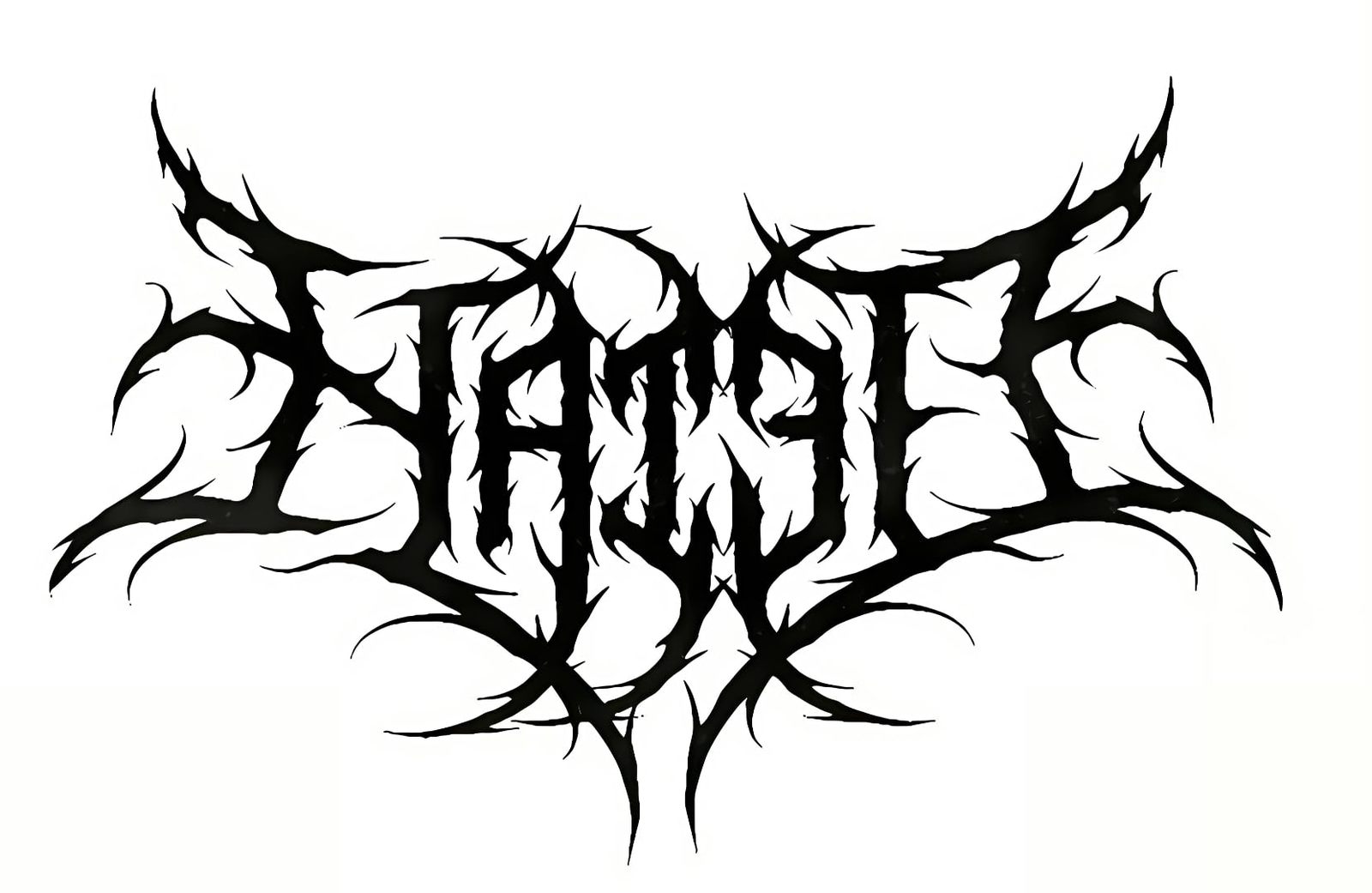
Hated Premium Death Metal Font Vinyl Decal Banner, JDM Style, Windshield Applica
Make a bold statement with this premium vinyl decal banner featuring an aggressive death metal font design. Perfect for automotive enthusiasts embracing the JDM (Japanese Domestic Market) style, this Hated brand decal is specifically crafted for windshield application. The striking typography creates an intense, eye-catching display that stands out against any surface. Each decal is precision-cut from high-quality vinyl material, ensuring clean edges and professional-looking results. Whether you're customizing your ride or adding some attitude to your vehicle's appearance, this decal delivers maximum impact. The distinctive death metal font style combines edgy aesthetics with durability, making it a must-have accent for those who want their vehicle to stand out from the crowd. Easy to apply and built to last, this premium vinyl decal maintains its bold appearance through various weather conditions.
Product description: Make a bold statement with this premium vinyl decal banner featuring an aggressive death metal font design. Perfect for automotive enthusiasts embracing the JDM (Japanese Domestic Market) style, this Hated brand decal is specifically crafted for windshield application. The striking typography creates an intense, eye-catching display that stands out against any surface. Each decal is precision-cut from high-quality vinyl material, ensuring clean edges and professional-looking results. Whether you're customizing your ride or adding some attitude to your vehicle's appearance, this decal delivers maximum impact. The distinctive death metal font style combines edgy aesthetics with durability, making it a must-have accent for those who want their vehicle to stand out from the crowd. Easy to apply and built to last, this premium vinyl decal maintains its bold appearance through various weather conditions.